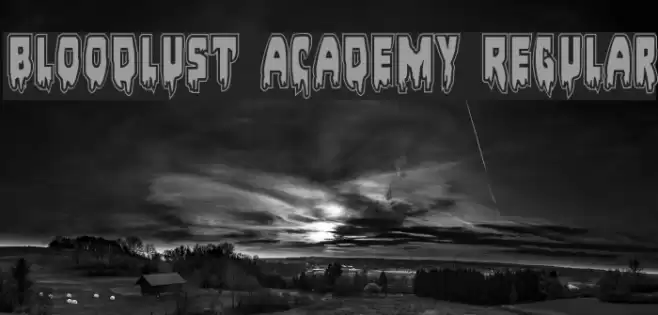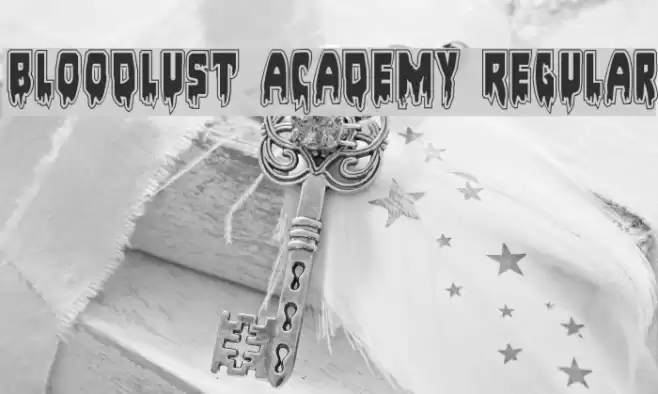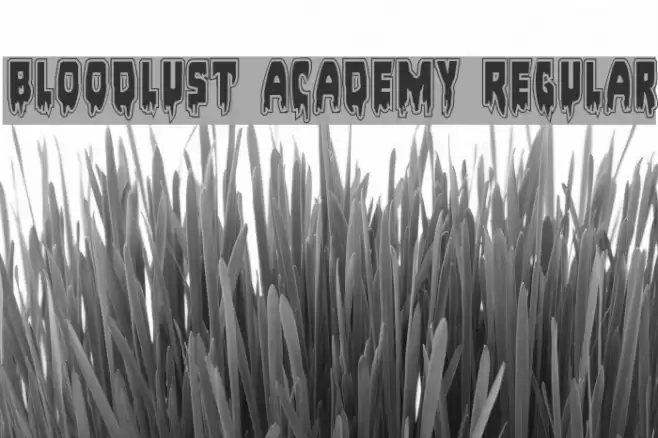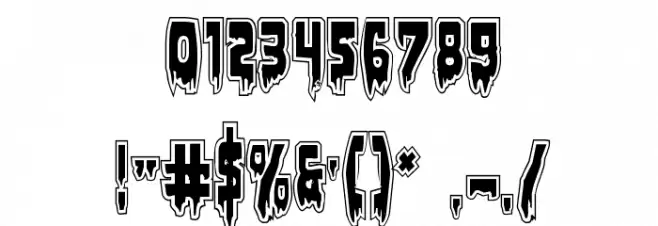
Bloodlust Academy Regular Font
Bloodlust Academy Regular Description
This font features a bold and dramatic style with jagged, dripping edges reminiscent of horror themes. The uppercase and lowercase letters maintain a consistent height, creating a uniform appearance. The numerals and special characters follow the same design, enhancing the overall cohesive look. The font's unique design elements make it ideal for projects that require a spooky or eerie atmosphere. Its boldness ensures visibility and impact, making it suitable for attention-grabbing headlines or titles.
A bold, horror-themed font with jagged, dripping edges from Uncategorized fonts.
- Proposed Projects: Ideal for Halloween-themed designs, horror movie posters, haunted house flyers, and spooky event invitations.